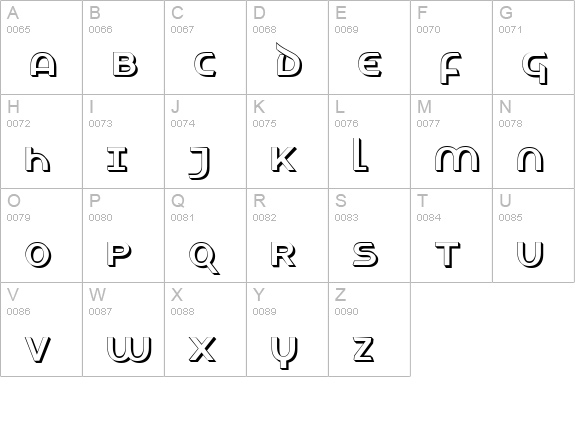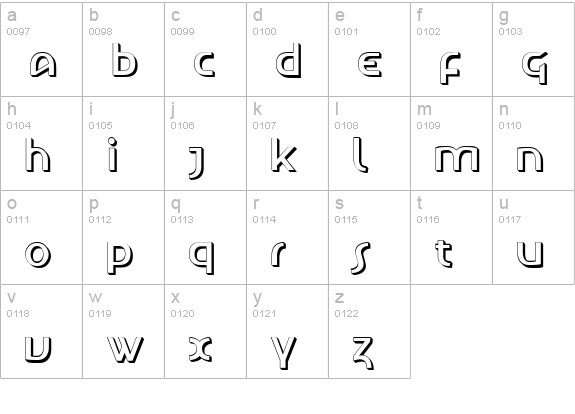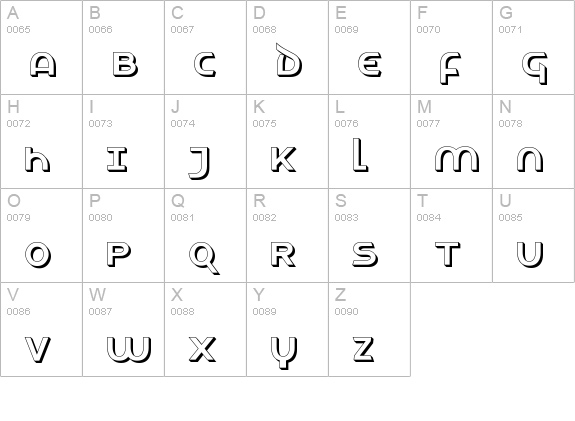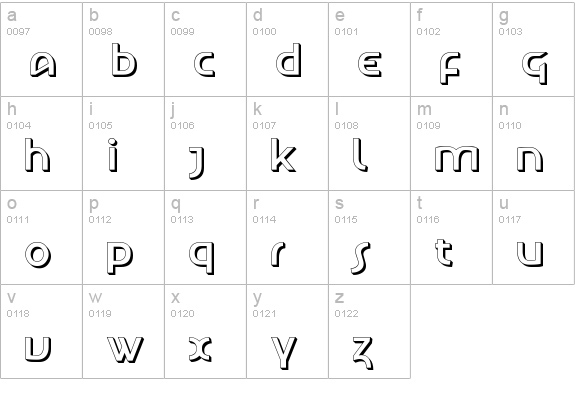
LetunicalShadow is a captivating and unique font that adds a touch of mystery and intrigue to any design project. With its intricate and delicate letterforms, this font effortlessly blends elegance and edginess, making it perfect for a wide range of creative applications. This font features a distinctive shadow effect that adds depth and dimension to each character, giving your text a mesmerizing and three-dimensional appearance. The subtle curves and clean lines of LetunicalShadow create a harmonious balance between modernity and classic design, making it suitable for both contemporary and vintage-inspired projects. Whether you're designing a logo, creating a poster, or crafting an eye-catching social media graphic, LetunicalShadow is sure to make a bold statement. Its versatility allows it to be used in various contexts, from fashion and beauty to technology and entertainment. One of the best things about LetunicalShadow is that it is available for free. You can easily download this stunning font from FontsMarket.com, a reputable platform that offers a vast collection of high-quality fonts. By making LetunicalShadow freely accessible, it ensures that designers and creatives of all backgrounds can add a touch of sophistication and intrigue to their projects without breaking the bank. So, if you're looking for a font that effortlessly combines elegance, mystery, and versatility, LetunicalShadow is the perfect choice. Download it for free at FontsMarket.com and let your creativity shine.